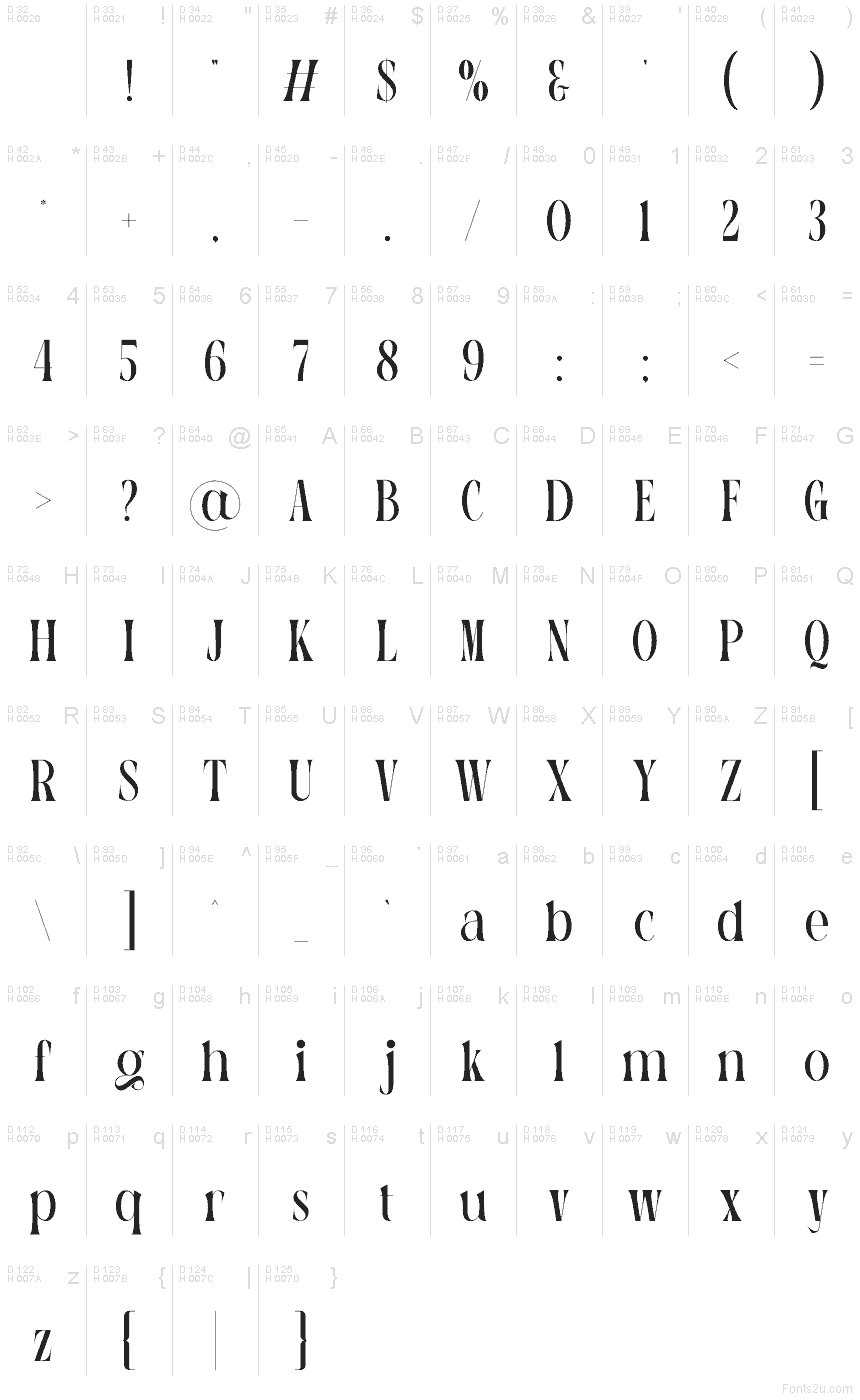
Avooka
Avooka font by Ermedia Studio is a free high-contrast display serif. Tall verticals, razor-thin hairlines, and sculpted, knife-edge serifs give it a glossy editorial snap—think ink pulled tight across the page. It reads like couture: refined, dramatic, and effortlessly modern without losing that classic serif poise.
Using Avooka, headlines hold together at large sizes with a chic rhythm that begs for white space. This free font shines on fashion branding, magazine covers, beauty packaging, boutique logos, wine labels, posters, and elegant invitations. For a balanced system, pair it with a clean geometric sans and tighten tracking slightly at display sizes to keep the silhouette crisp.